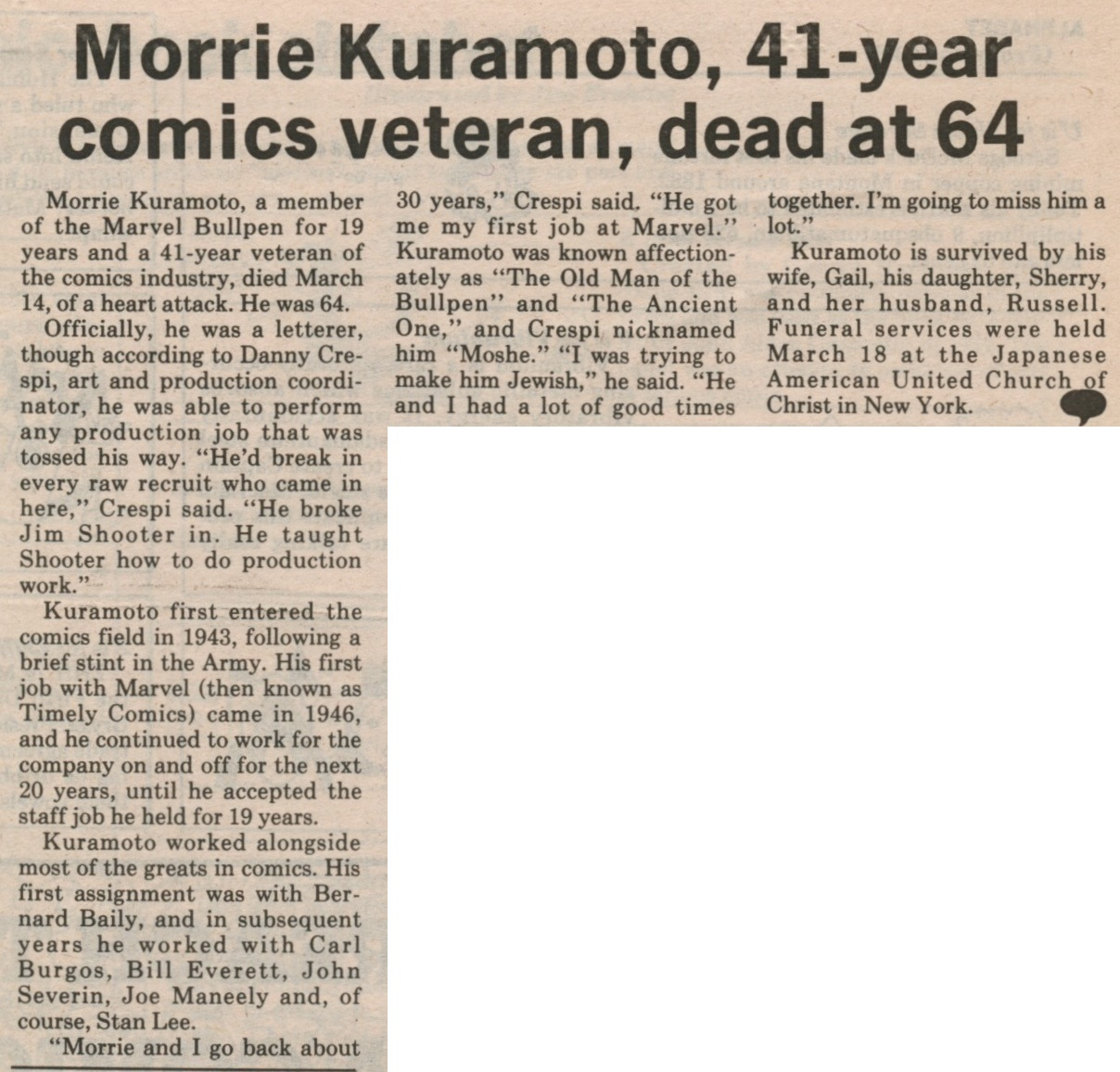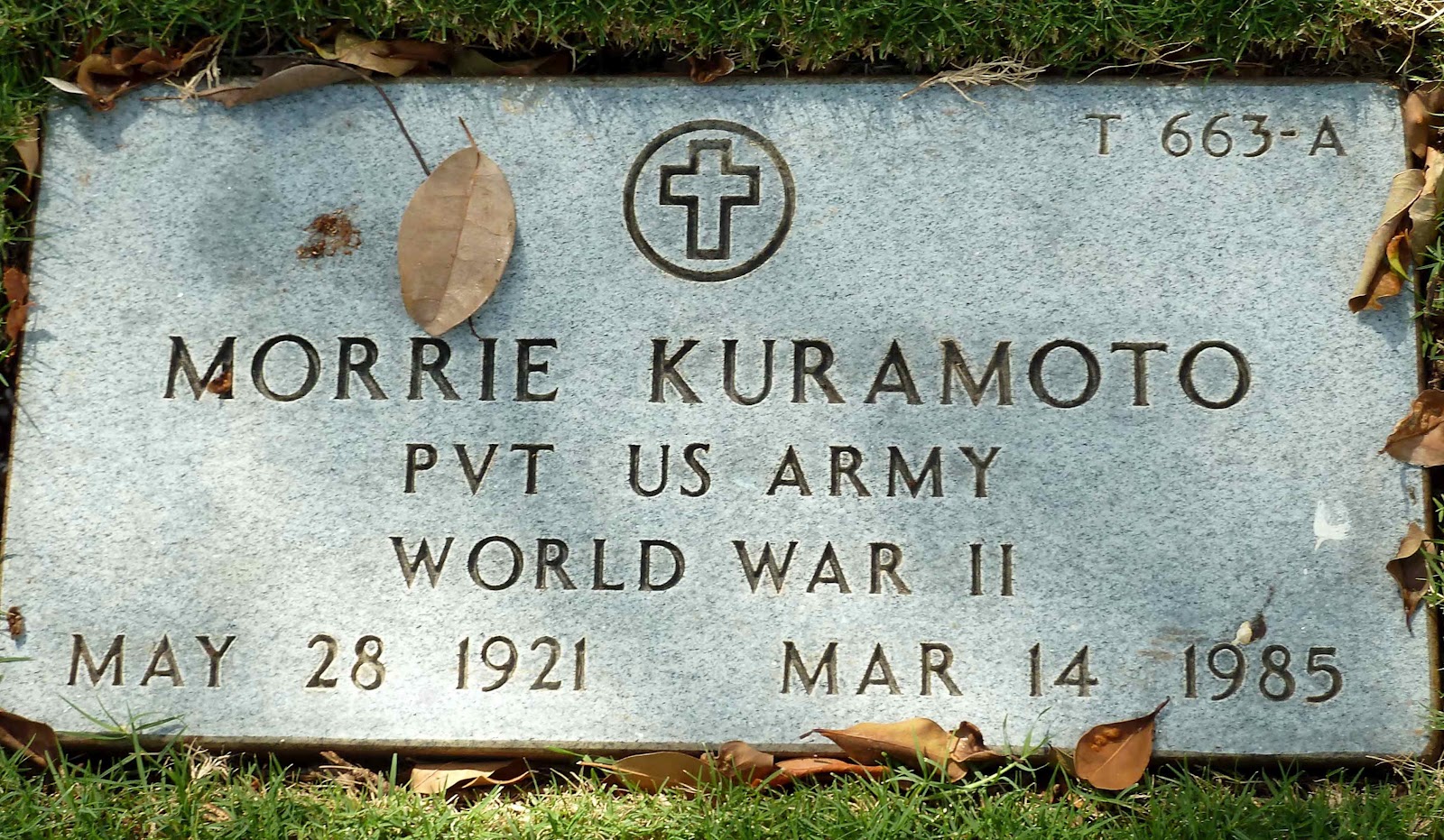
Creator: Morrie Kuramoto
MAMORU “MORRIE” KURAMOTO
May 28, 1921 – March 14, 1985
Information at Ancestry.com
California Birth Index
Name: Mamoru Kuramoto
Birth Date: 28 May 1921
Gender: Male
Mother's Maiden Name: Mukai
Birth County: Tulare
California Passenger List
Name: Mamoru Kuramoto
Arrival Date: 1 Oct 1922
Age: 1 Years 4 Months
Birth Date: abt 1921
Birthplace: Fresno, California, United States
Gender: Male
Ethnicity: Japanese
Name and address of nearest: Mrs. Tsui Kuramoto ([Grand]mother), #1479 Yoshidacho, Takatagun, Hiroshimaken
Ship Name: Persia Maru
Port of Arrival: San Francisco, California
Port of Departure: Yokohama, Japan [September 12, 1922]
Destination: Fresno, California, United States
Last Residence: United States of America, California
Line: 10; Matsumi Kuramoto, mother
Line: 11; Yoshie, sister
Friend's Name: Msasuke Shin
Archive information (series:roll number): M1410:164
Name: Mamoru Kuramoto
Arrival Date: 26 Jun 1936
Age: 15
Birth Date: abt 1921
Birthplace: Calif, Reedley, United States
Gender: Male
Ethnicity: Japanese
Ship Name: Chichibu Maru
Port of Arrival: Los Angeles, California
Port of Departure: Kobe, Japan
Last Residence: Japan
Archive information (series:roll number): m1764:69
1940 United States Census
Name: Mamoru Kuramoto
Age: 18
Gender: Male
Race: Japanese
Birthplace: California
Marital status: Single
Relation to Head of House: Son
Home in 1940: Pasadena, Los Angeles, California
Street: West Valley Street
House Number: 144
Inferred Residence in 1935: Pasadena, Los Angeles, California
Residence in 1935: Same Place
Resident on farm in 1935: No
Attended School or College: Yes
Highest Grade Completed: High School, 1st year
Household Members:
Name / Age
Robinshi Matsumoto, 47
Matoanni Matsumoto, 38
Mamoru Kuramoto, 18
Yacho Mateumoto, 12
Mielko Matsumoto, 10
Roy Matsumoto, 9
Bobbie Matsumoto, 6
World War II Army Enlistment Record
Serial Number: 39025099
Name: Mamoru Kuramoto
Birth Year: 1920
Race: Japanese, citizen (Japanese)
Nativity State or Country: California
State of Residence: California
County or City: Los Angeles
Enlistment Date: 30 Mar 1942
Enlistment State: California
Enlistment City: Fort Macarthur San Pedro
Branch: Branch Immaterial - Warrant Officers
Branch Code: Branch Immaterial - Warrant Officers
Grade: Private
Grade Code: Private
Term of Enlistment: Enlistment for the duration of the War or other emergency, plus six months, subject to the discretion of the President or otherwise according to law
Component: Selectees (Enlisted Men)
Source: Civil Life
Education: 3 years of high school
Civil Occupation: Sales clerks
Marital Status: Single, without dependents
Height: 67
Weight: 121
WWII Hospital Admission Card File
Name: Mamoru Kuramoto
Gender: Male
Race: Others (incl Philippine Natives & Puerto Ricans) or race unknown (Filipino)
Rank: Enlisted Man
Admission Age: 20
Birth Date: abt 1923
Birth Place: USA
Admission Date: July 1943
Admission Place: Ft. Benjamin Harrison, Indiana
Discharge Date: August 1943
Military Branch: Others, unassigned and unspecified
Diagnosis: Deformity or disease of the spine; Diagnosis: Other conditions of the Bones and Organs of Movement: Deformities due to previous disease or injury NEC (not elsewhere classified)
Injured in Line of Duty: Not in Line of Duty, existed prior to entry into service